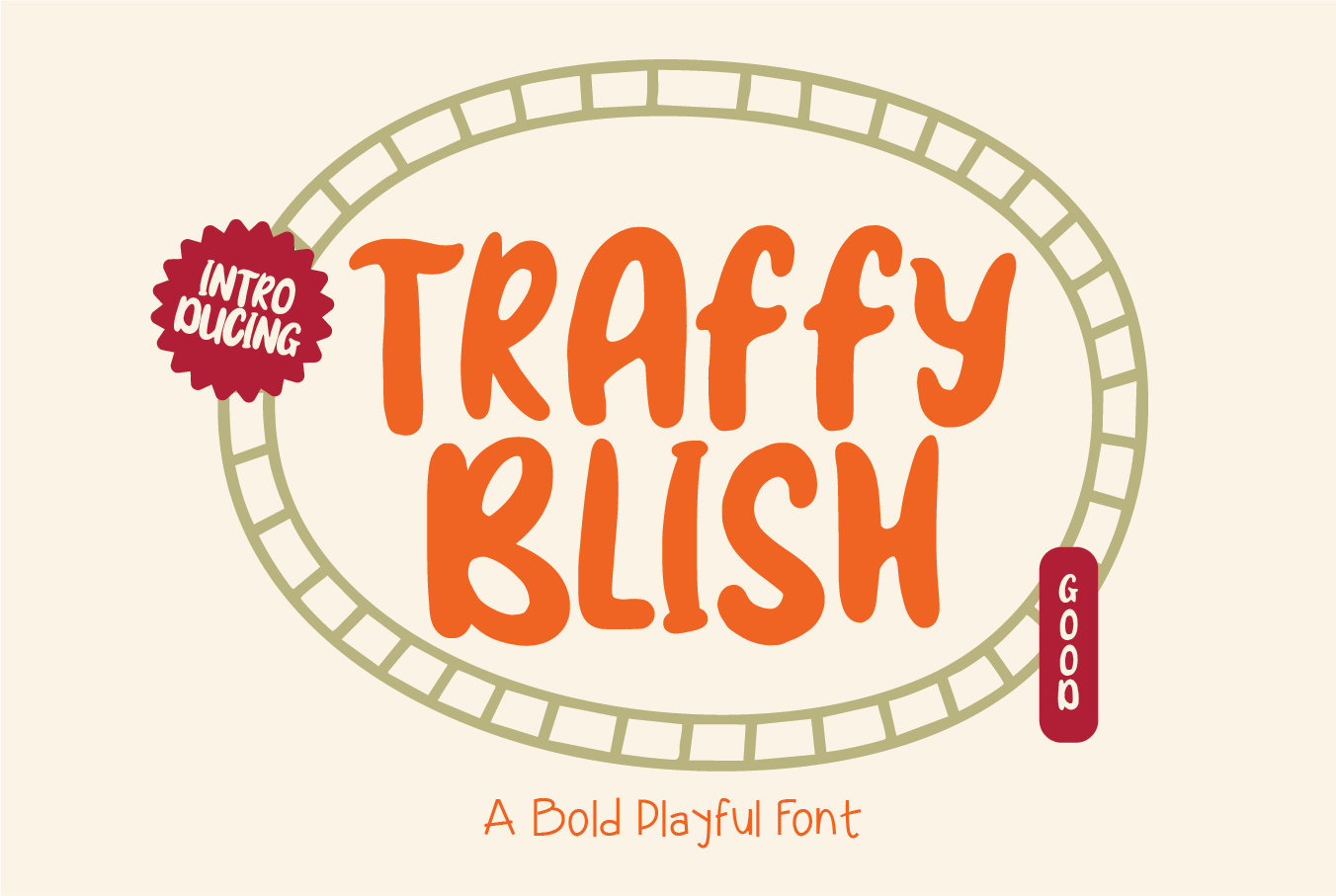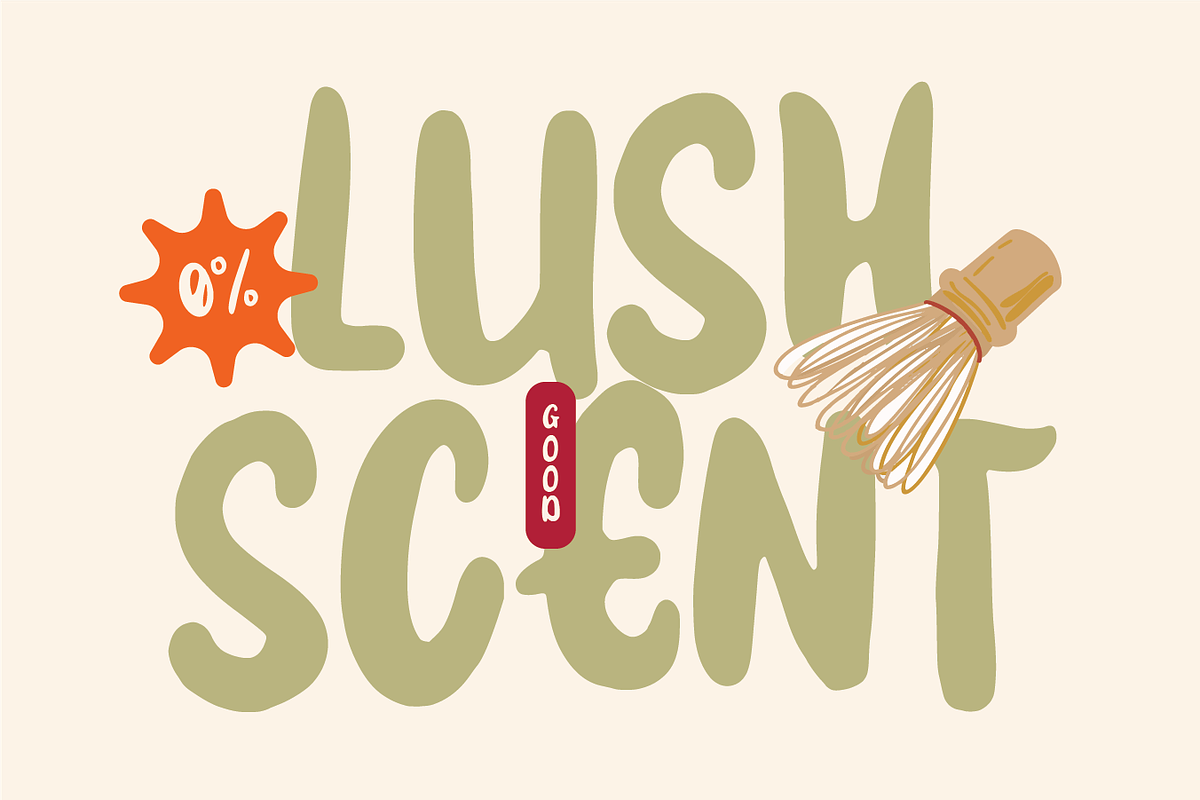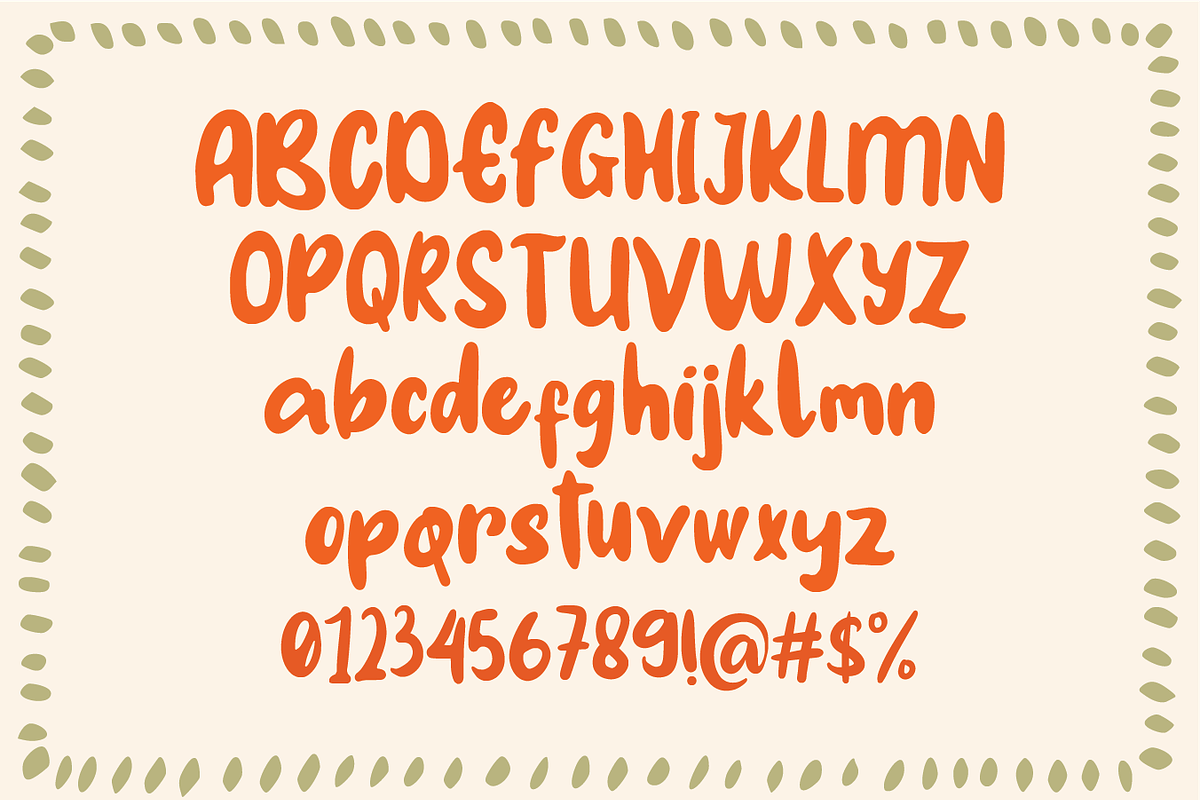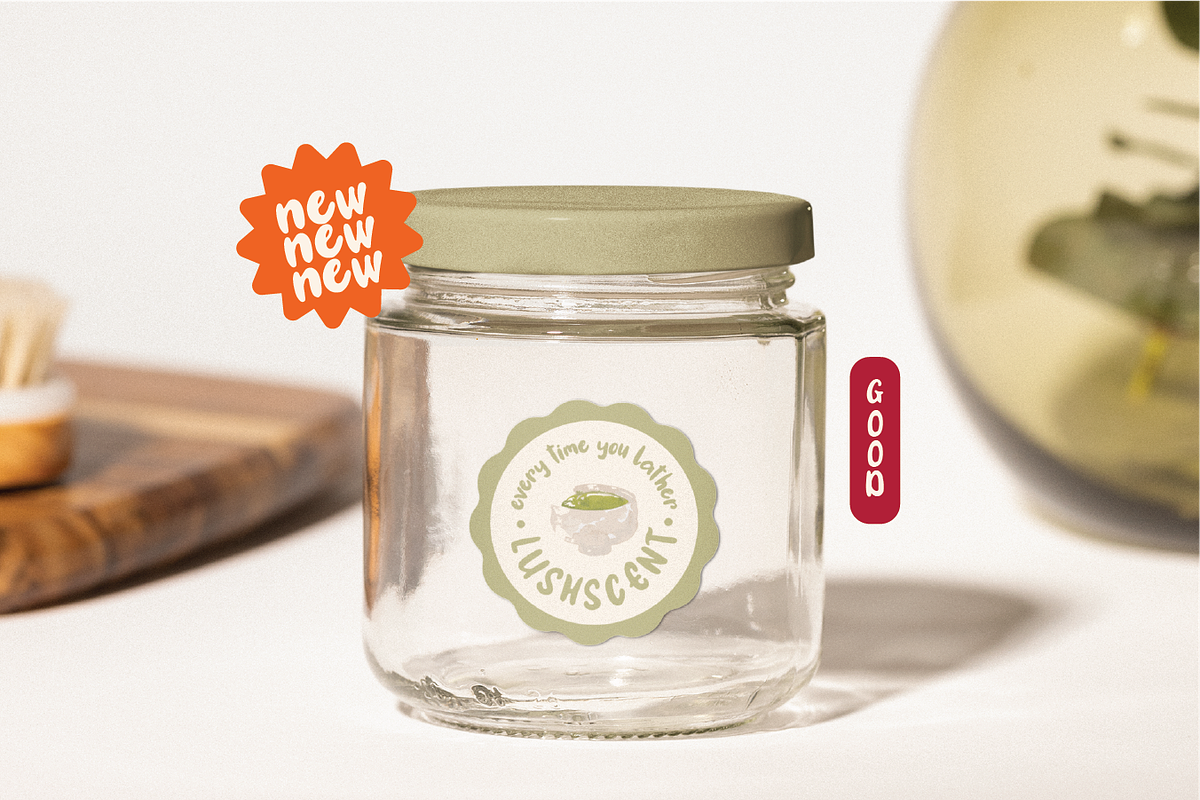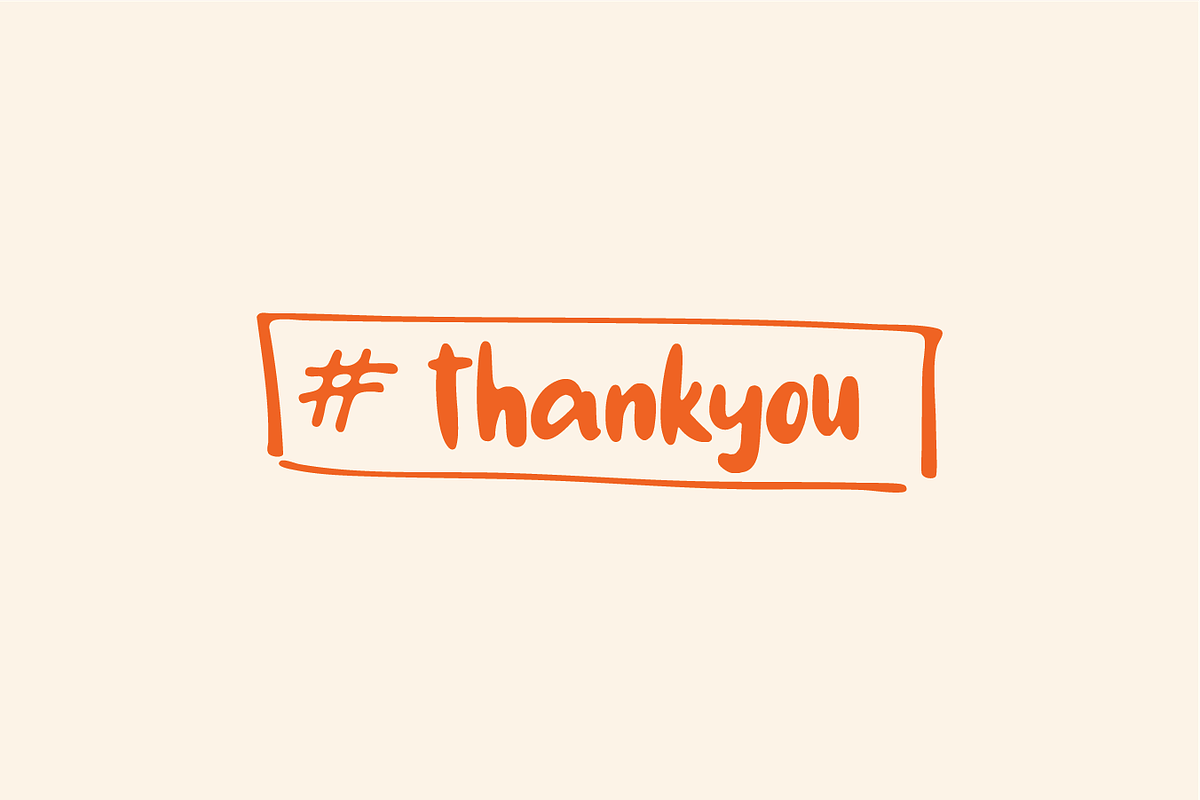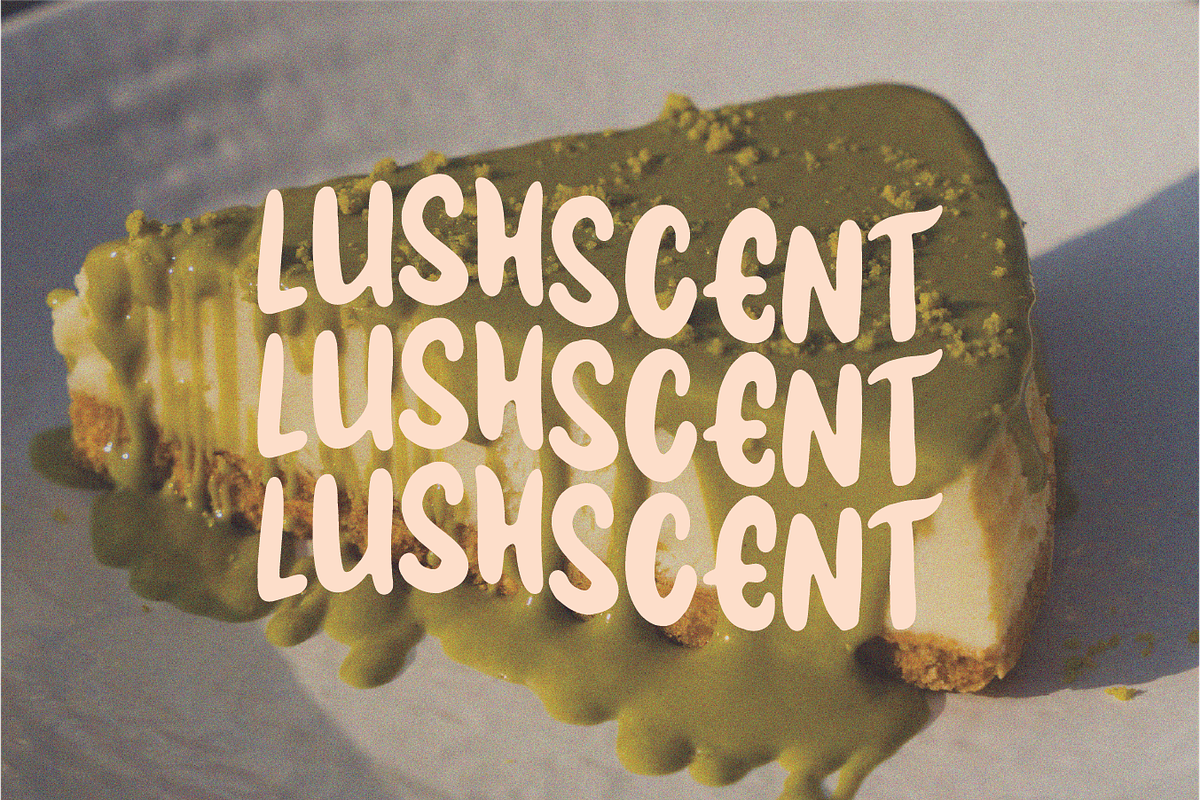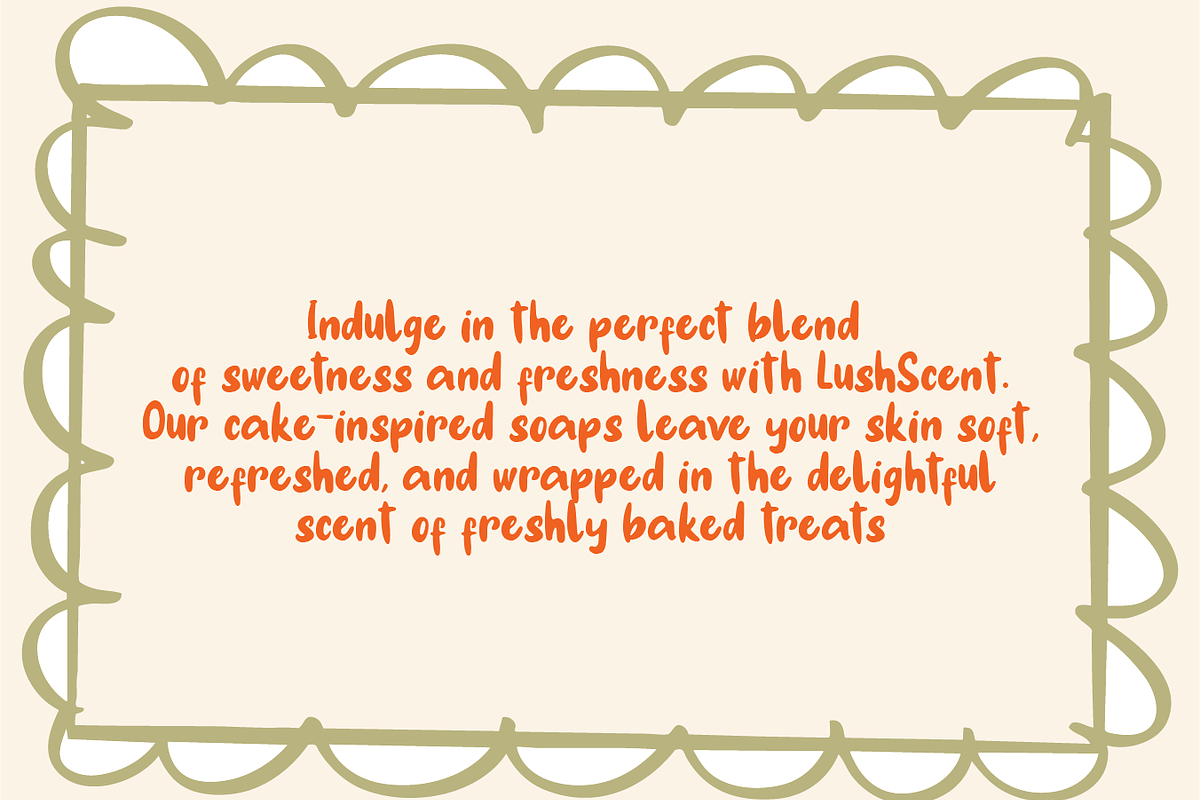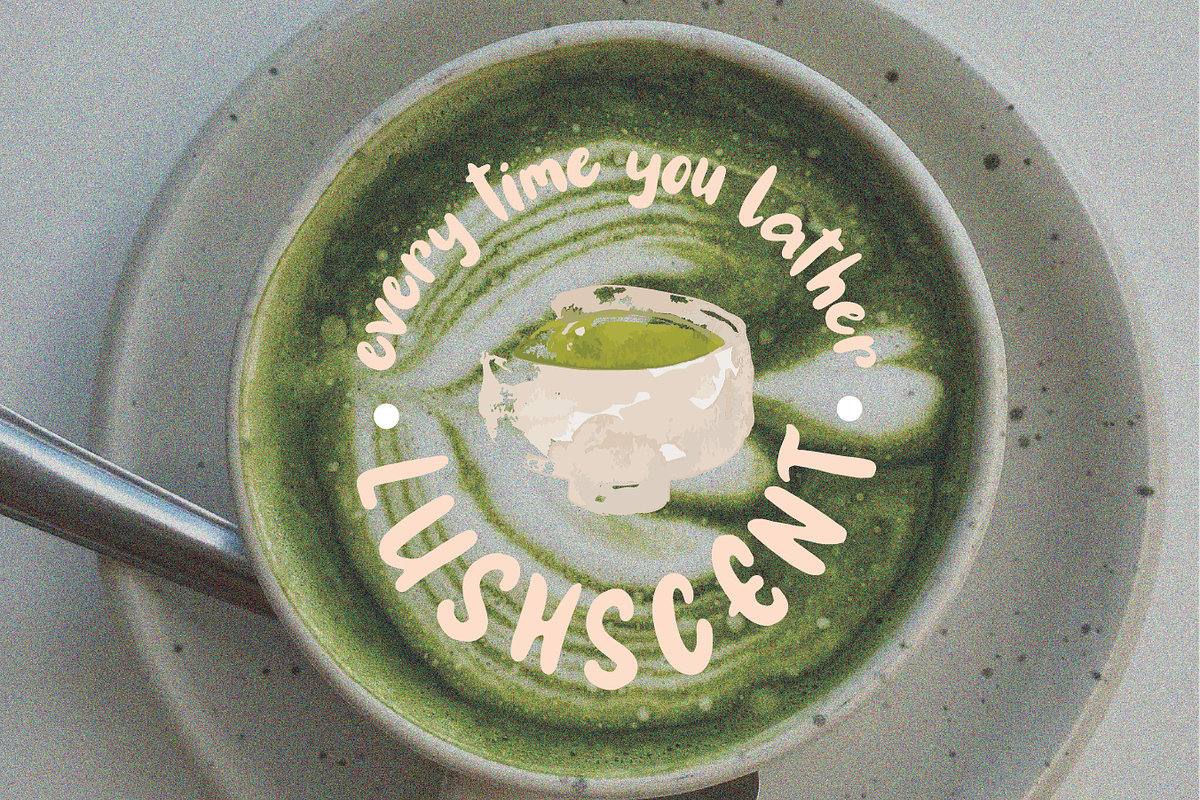
Traffyblish - Bold Playful Font
Traffyblish The font in this design is bold, playful, and casual with rounded edges and a hand-drawn feel. The letters are chunky, wide, and have an energetic, fun-loving vibe that instantly grabs attention.